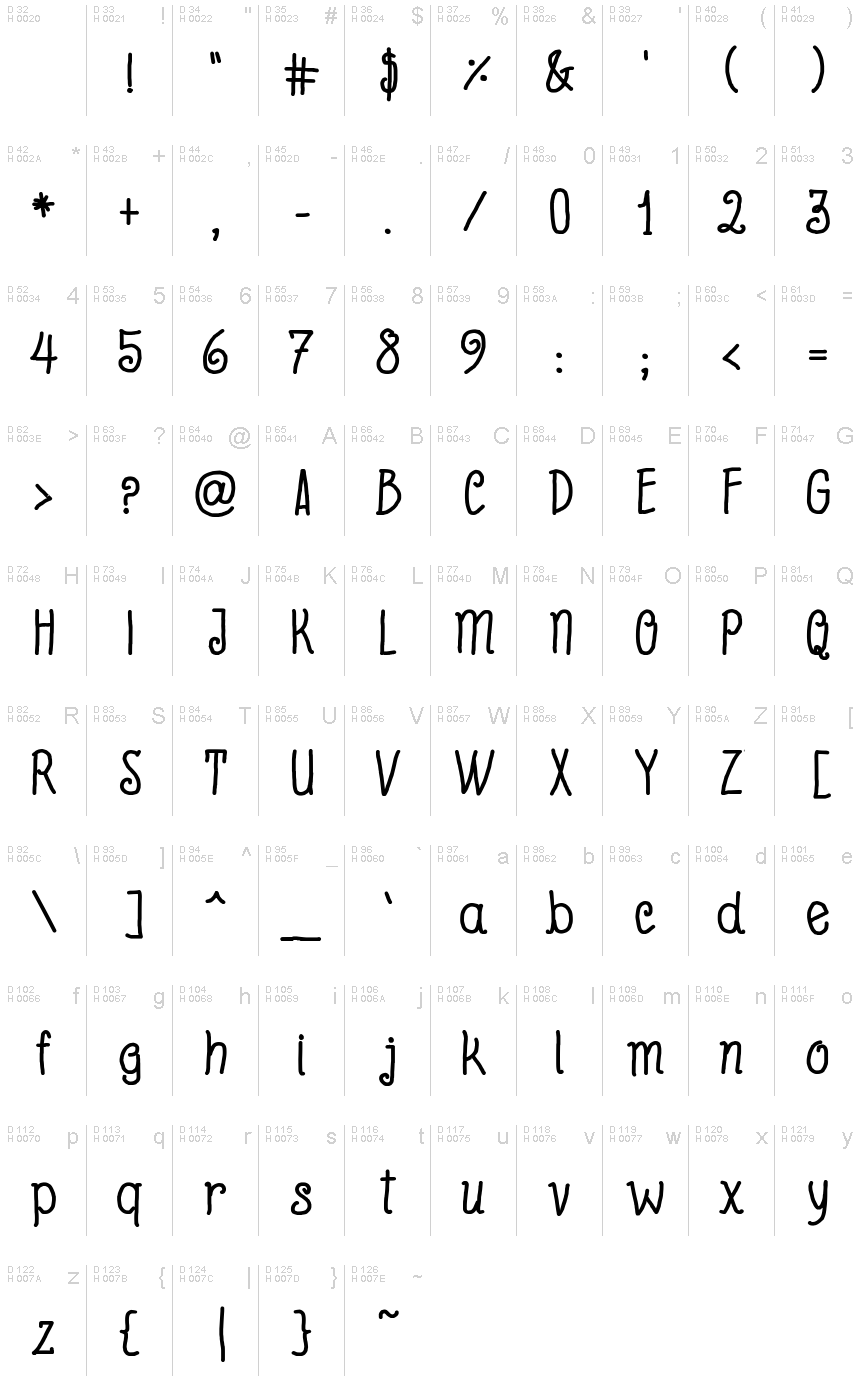
Beyond Blackboard Bold
Crafted with a touch of rustic charm, the Beyond Blackboard font family exudes a captivating handwritten aesthetic. Designed by Galdino Otten Fonts, this condensed typeface boasts a distinct personality, blending bold strokes with elegant curves that create a visually striking impression. The font's unique character evokes a sense of warmth and authenticity, making it an alluring choice for a wide range of design applications.
Beyond Blackboard's versatility shines through, making it an excellent selection for projects seeking a bold, yet approachable typographic presence. Its condensed width lends itself well to eye-catching headlines, impactful branding, and expressive visual communications. The font's handwritten charm also makes it a natural fit for craft-inspired designs, artisanal product packaging, and inviting stationery applications, where its organic quality can truly shine.